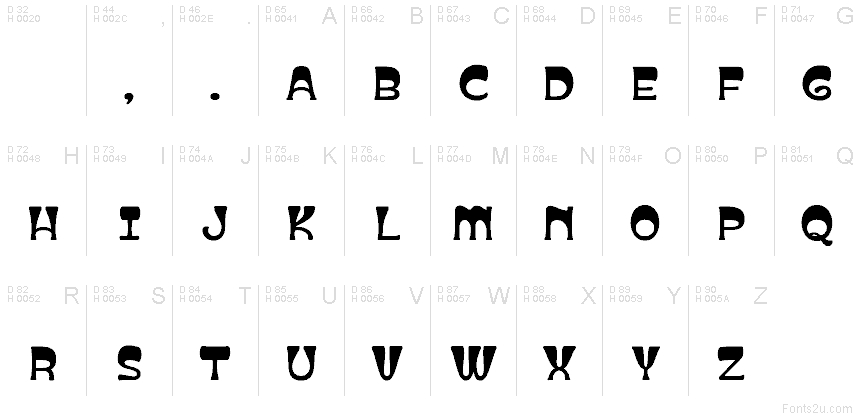
BONZEIR Regular
Bonzeir font by Achmad Yani reflects the artistic flair and glamor of the past eras. The display-styled bold fonts with slight strokes have a harmonious structure and a strong artistic character that will attract viewers’ attention. Organic shapes contribute to such an effect, making this free retro font suitable for all projects envisioned by artists.
Enrich your posters, flyers, or brochures with interesting headlines and subheadings decorated with this font. It’s perfect for magazine titles, book covers, consumer packaging, website designs, social media posts and covers. The vintage influence lights up apparel branding logotypes such as t-shit logos.